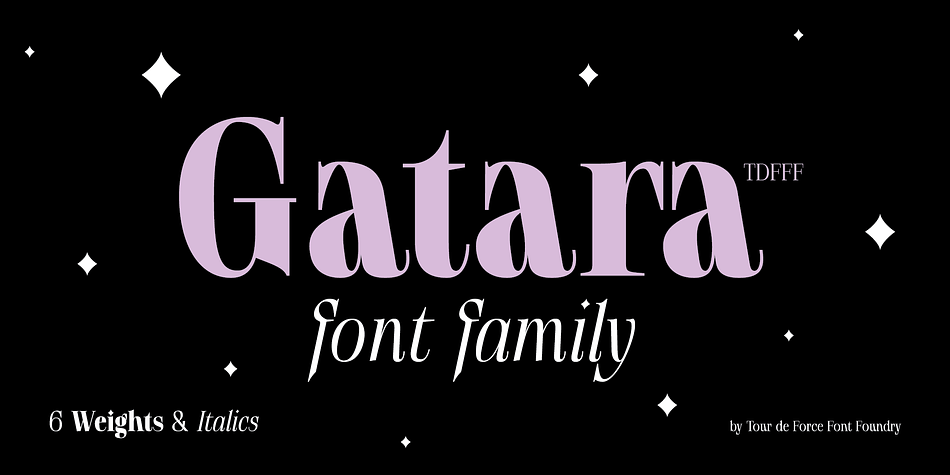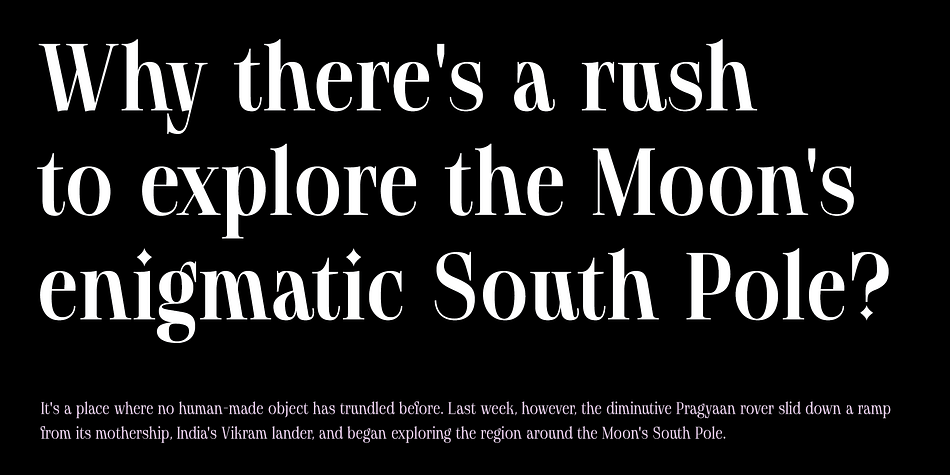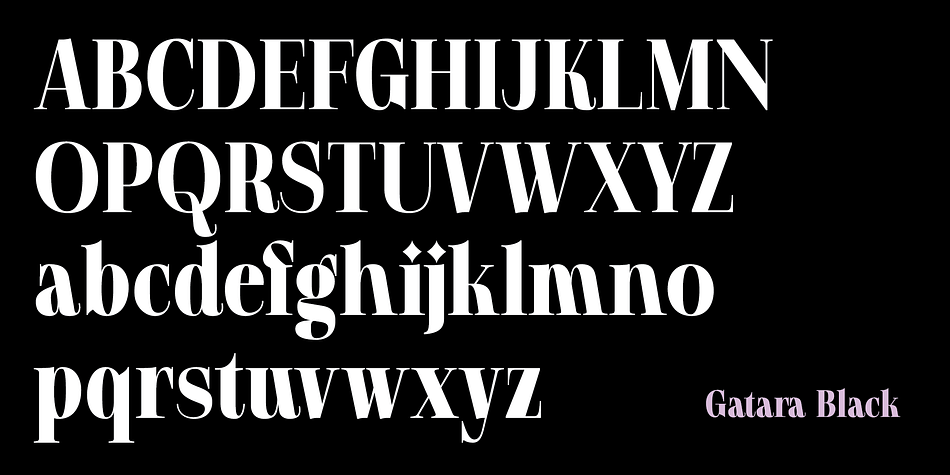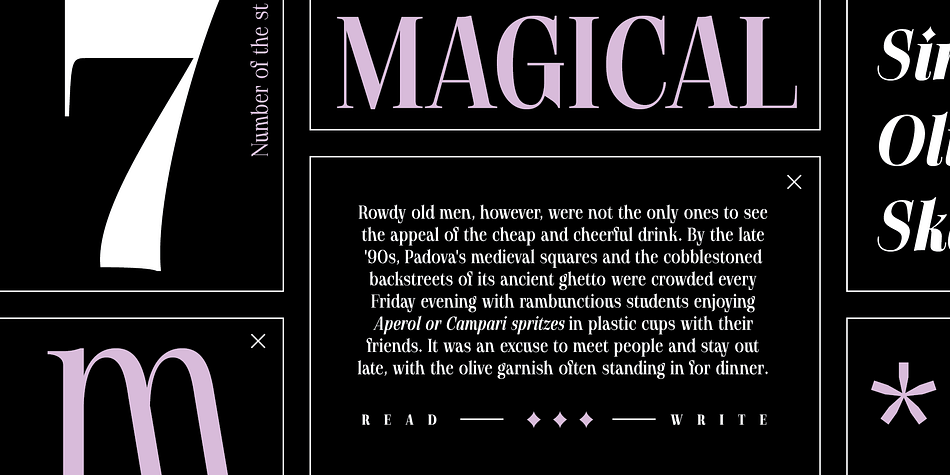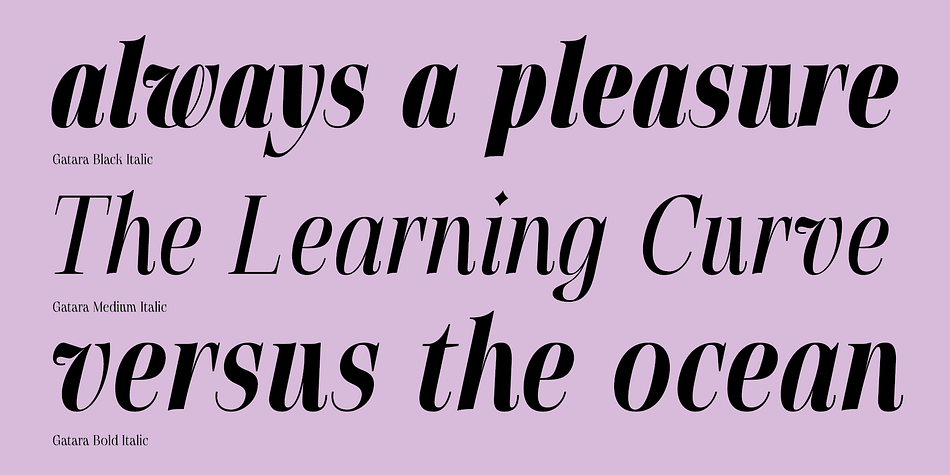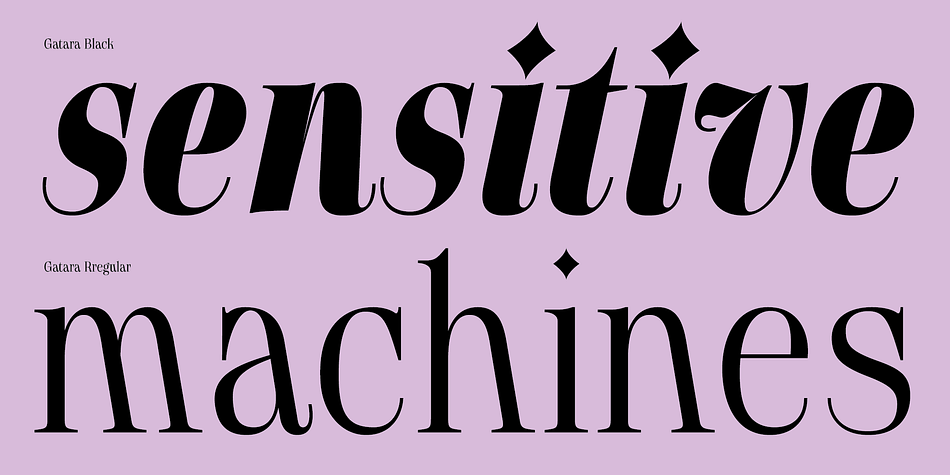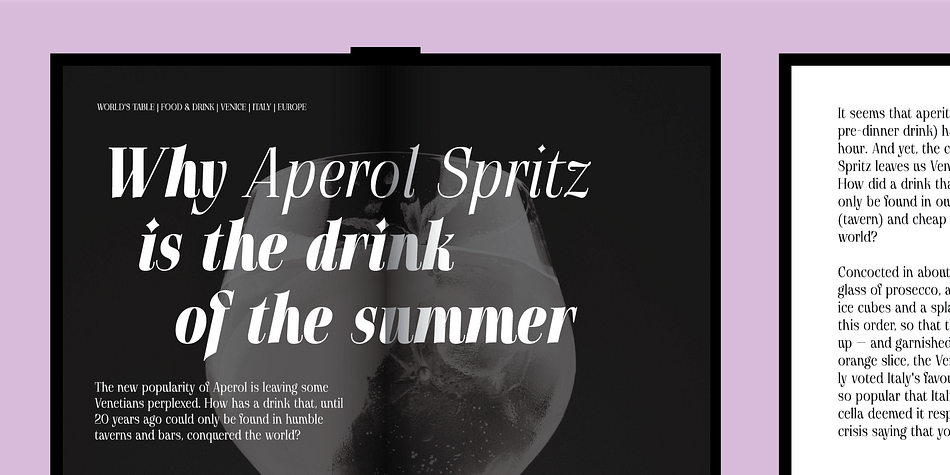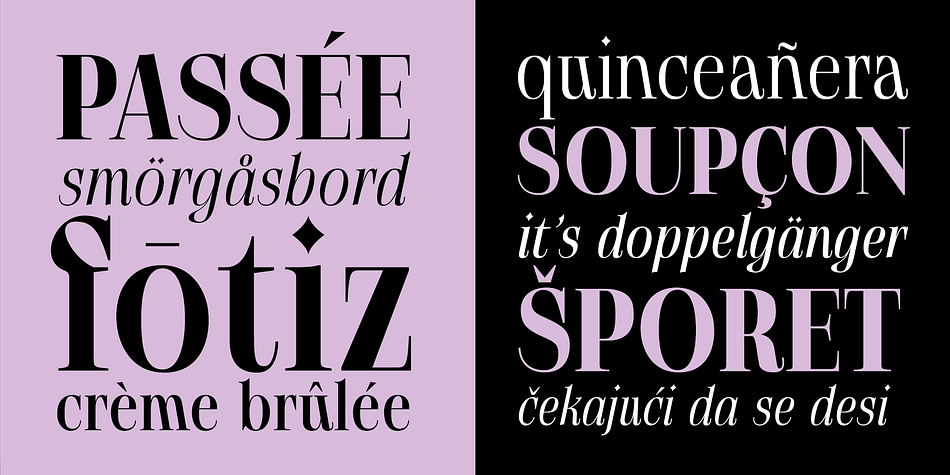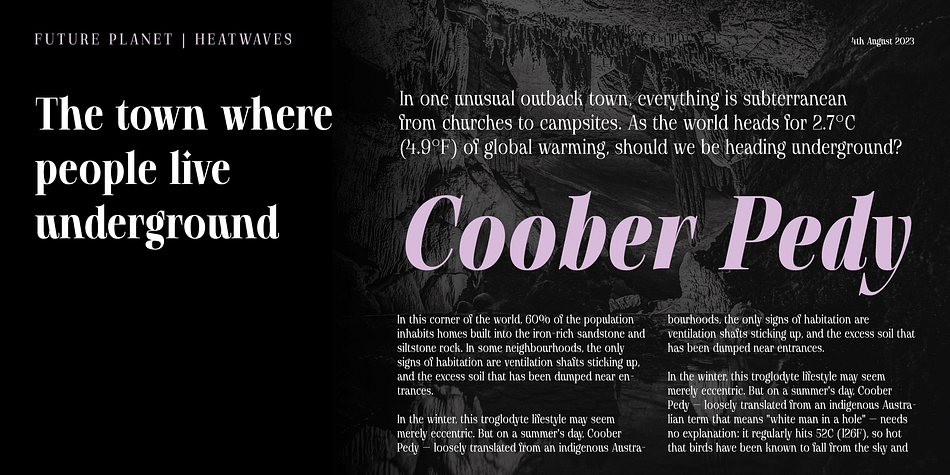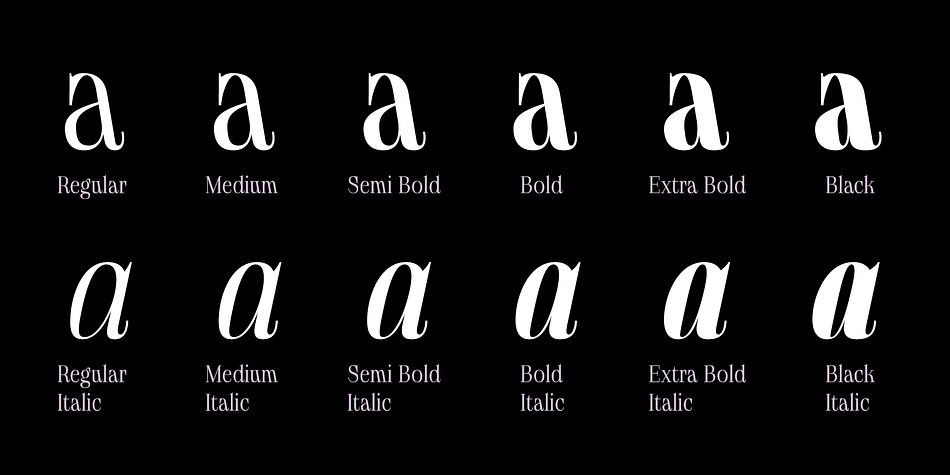
Gatara
Designed by Dusan Jelesijevic, Gatara is a serif font family. This typeface has twelve styles and was published by Tour de Force Font Foundry.
Gatara is serif font family with elements of Didone available in 6 weights and matching Italics. It is high contrasted typeface with some distinctive details such as stemmed shape of “h”, “n”, “m” and “a” letters, unique “f” and “k” in same style.
Comes with Standard Ligatures and Fractions with Extended Latin character map.
As Gatara contains dose of decoratively design, beside editorial use, branding or web font usage, it can be used effectively for titles as well.